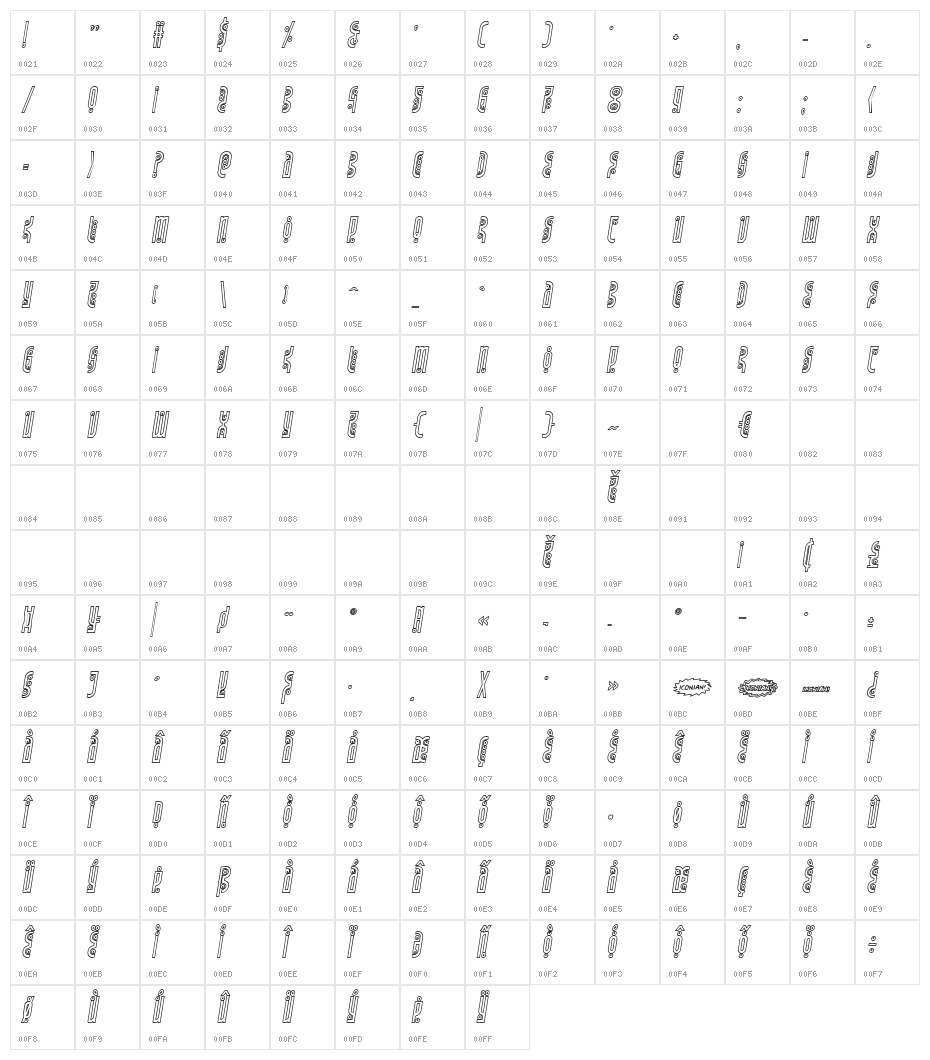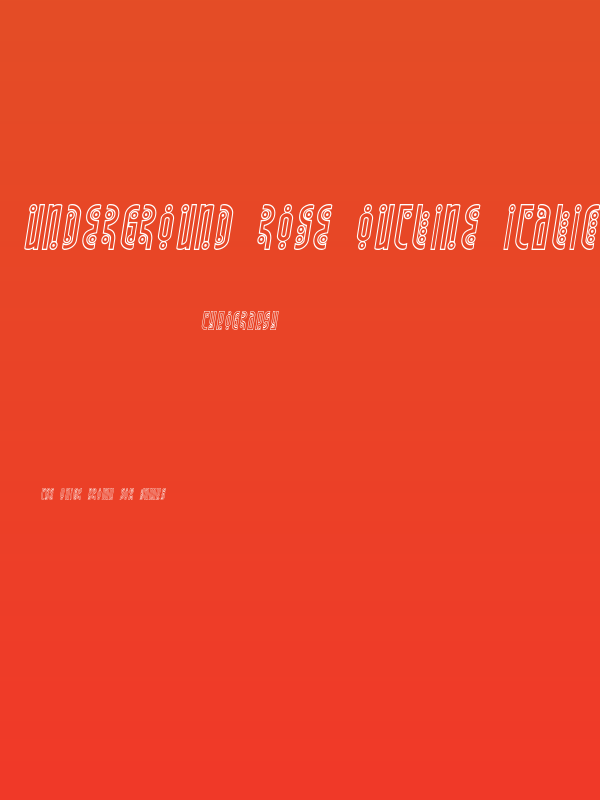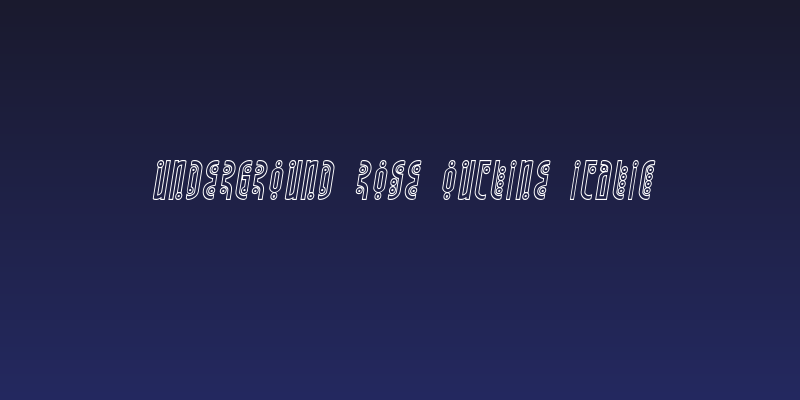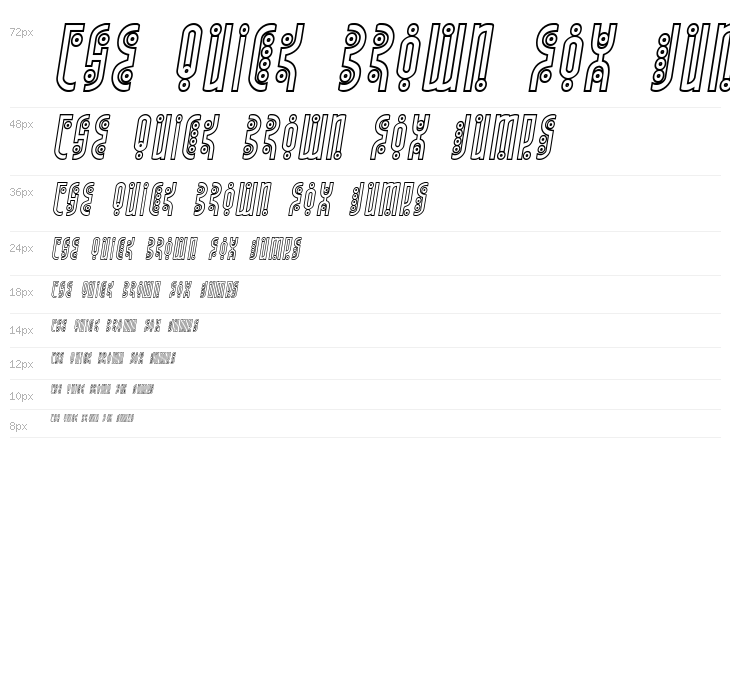
Underground Rose Outline Italic Font
Underground Rose Outline Italic Description
This font features a unique and playful outline style with a distinct italic slant. The characters are adorned with circular embellishments that add a whimsical touch, making it stand out as a decorative choice. The uppercase and lowercase letters maintain a consistent design, with the uppercase being slightly more elongated. Numbers and special characters follow the same stylistic approach, ensuring uniformity across all glyphs. The font's outline nature gives it a light and airy feel, suitable for creative and artistic projects.
| Proposed Projects | Ideal for creative projects such as posters, album covers, and artistic branding materials. |